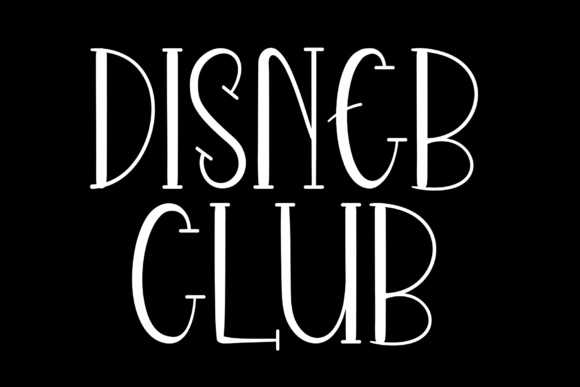
Disneb Club Script Elevates Handmade Products and Printables
I remember sitting at my desk, tweaking the label design for a new batch of lavender-chamomile soy candles. I had the perfect kraft paper label, a delicate illustration of dried flowers, but the text felt mechanical. I wanted the word "Lavender" to feel as soothing as the scent itself. That’s when I found Disneb Club over on Script Amp. It wasn't just another script font. It had this immediate warmth, a friendly bounce that whispered handmade and heartfelt. It completely changed how I approached product design.
Disneb Club is a handwritten font that carries a personality uniquely sweet and approachable. Unlike rigid, formal calligraphy fonts that can feel distant, this typeface feels like a warm note from a friend. Its bouncy baseline and varied letter heights give it that authentic, just-written-with-a-favorite-pen feeling. For a crafter or small shop owner, this translates directly to emotional appeal. It tells your customer that this product didn't come off a cold assembly line—it was made with care.
From Screen to Product Label
When I first applied Disneb Club to my candle labels, the shift was immediate. The phrase "Lavender Honey" wasn't just information on a jar; it became an invitation. I paired the script with a clean, thin sans serif for the scent notes and warning labels, which created a beautiful balance. The font holds up exceptionally well in print. I tested it at different sizes, from the large product name down to smaller batch numbers. The thick and thin strokes remained crisp, even on matte sticker paper. This is a crucial point for makers: a font might look great on screen, but it must perform on physical goods. Disneb Club delivers.
For product packaging, readability is everything. Customers glance at a shelf for only seconds. The generous stroke weight of Disneb Club ensures that names and titles are instantly legible. It avoids the fragile hairlines that often break apart in script fonts, making it reliable for the small print runs that define handmade business.
Greeting Cards and the Handwritten Touch
My next project was a line of greeting cards. I needed a font that could carry a short, sweet sentiment without heavy graphic embellishment. Disneb Club was perfect. I typed out phrases like "You're My Favorite" and "So Glad We're Friends." The font's creative personality did all the heavy lifting.
I paired it with a faint watercolor splash in the background and a simple serif for the inside message. For printable creators, this is gold. It provides that boutique feel that buyers look for on marketplaces. It makes the digital design feel tangible before it is even printed. Whether you are designing printable wall art for a nursery or a set of gift tags, this typeface adds a layer of genuine emotion that standard system fonts simply cannot match.
Wedding and Event Stationery with a Fun Twist
While Disneb Club is sweet and cute, it does not have to be childish. I used it for a modern bridal shower invitation suite. The bride wanted something elegant but not stuffy, with a touch of playfulness. Using Disneb Club for the main header and a simple elegant serif for the details created a gorgeous modern typography hierarchy.
It works beautifully on wedding welcome signs, escort cards, and favor tags. It adds that element of fun and personality without sacrificing the sophisticated look that wedding clients demand. The font bridges the gap between editorial design and personal connection, which is exactly what event stationery needs.
Cutting Machines and Physical Goods
For those of us using Cricut or Silhouette machines, font selection is critical. Script fonts can often have thin connections that break when weeded. Disneb Club has a robust structure that weeds beautifully.
I recently designed a batch of custom tote bags for a local market. The phrase "Shop Small" in Disneb Club, cut in white permanent vinyl on natural canvas, looked incredible. The letters held together perfectly with no broken pieces. I also used it for small gift tags and custom apparel. The key is testing the font's weight. This typeface is robust enough for physical materials like vinyl and heat transfer, making it a versatile asset in any maker's font library.
Branding Your Small Shop
Consistency in font usage builds brand identity. Using Disneb Club on your logo, your product packaging, your social media graphics, and your thank you cards creates a cohesive brand experience. Customers begin to recognize your style. When they see that friendly script, they associate it with the quality of your handmade goods.
Whether you are designing a product label for a body butter or creating a digital template for a planner page, this font provides a cohesive thread of sweetness and creativity. It unifies your web design with your physical product, which is a challenge many handmade sellers face.
Practical Readability and Font Pairing
Disneb Club is a display font at heart, meaning it shines brightest in titles, names, and short phrases. It is perfectly suited for product labels where space is limited. For longer body text, I recommend keeping it at larger point sizes to preserve its legible charm.
In a market saturated with mass-produced goods, the details are what create connection. The texture of the paper, the quality of the ingredients, and the personality of the typeface all contribute to the customer's experience. Disneb Club helps you infuse your products with a sense of joy and care. It turns a simple label into a statement. It transforms a greeting card into a keepsake. For any crafter, handmade seller, or creative business owner looking to add a touch of sweet, friendly charm to their line, this font from Script Amp is a reliable, beautiful tool that consistently delivers real results.